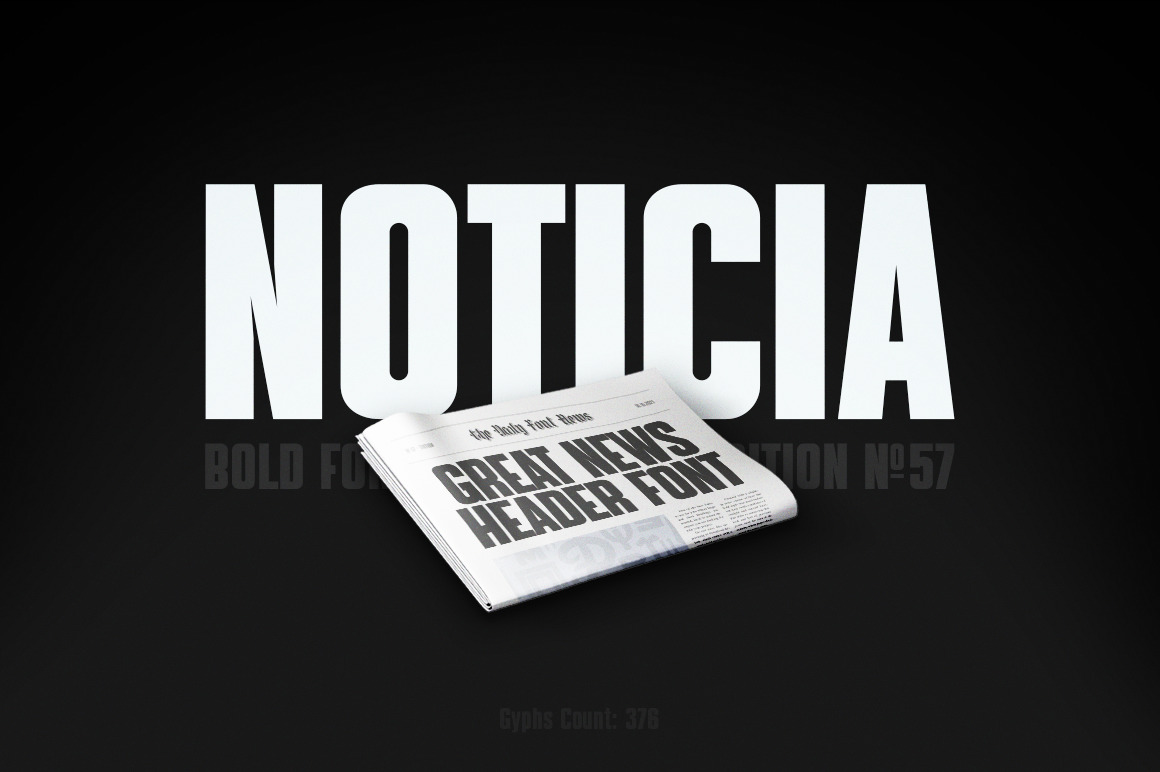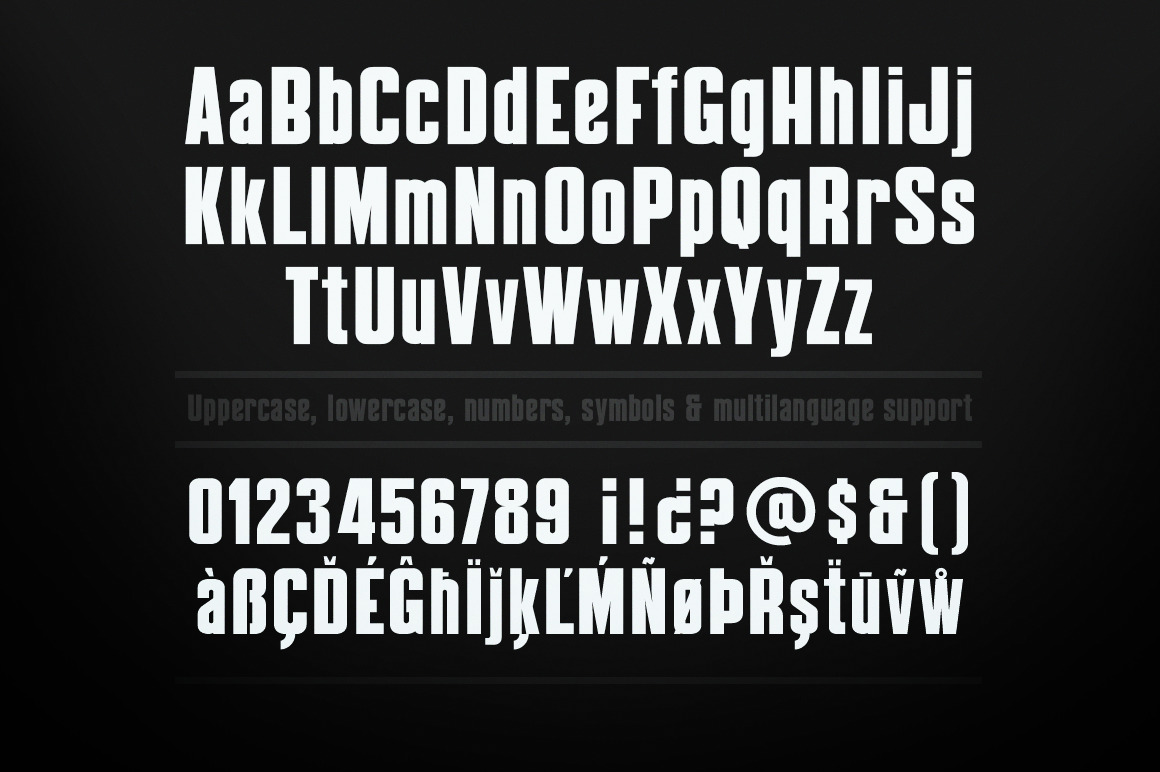
Noticia Font
Noticia is a strong and bold classic style font that is ideal for use with headlines or short headers in the style of the traditional printed newspapers. The font is clean and its simple curve and straight lines appearance help recreate that turn of the century news look and feel. The file includes uppercase and lowercase characters, standard punctuation, and international characters for multi-language support features to help you create amazing design results.